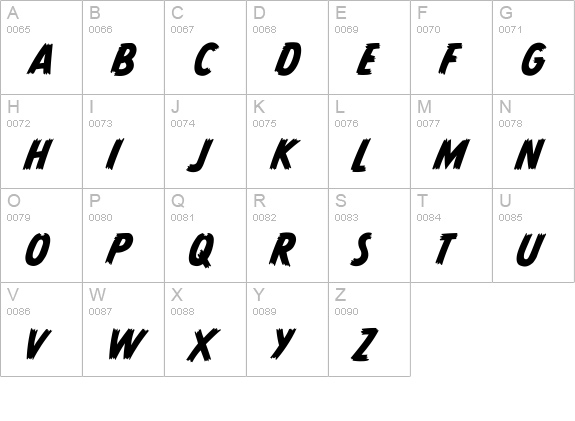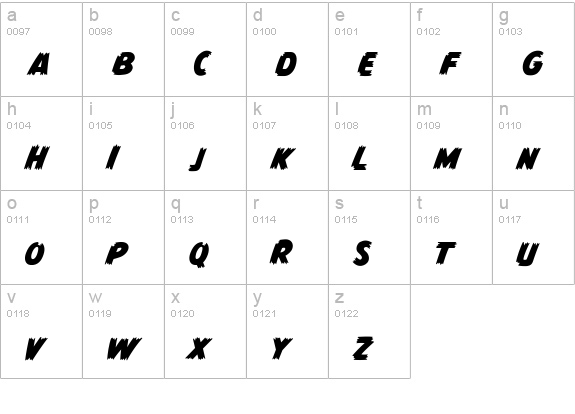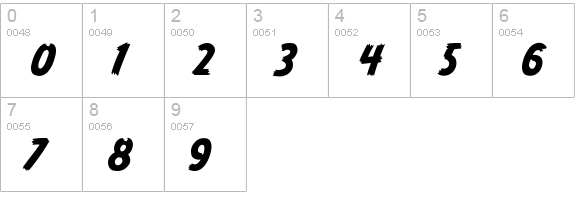
CCMonsterMash Font Details
The CCMonsterMash font is a quirky and playful typeface that is perfect for adding a touch of fun and whimsy to your designs. With its unique and whimsical characters, this font is sure to stand out and make a statement. Whether you're working on a Halloween-themed project or just want to add a bit of personality to your design, CCMonsterMash is the perfect choice. The best part? CCMonsterMash is available for free download at FontsMarket.com! This means you can easily add this fun and eye-catching font to your collection without breaking the bank. So why wait? Download CCMonsterMash today and start creating designs that are sure to impress!